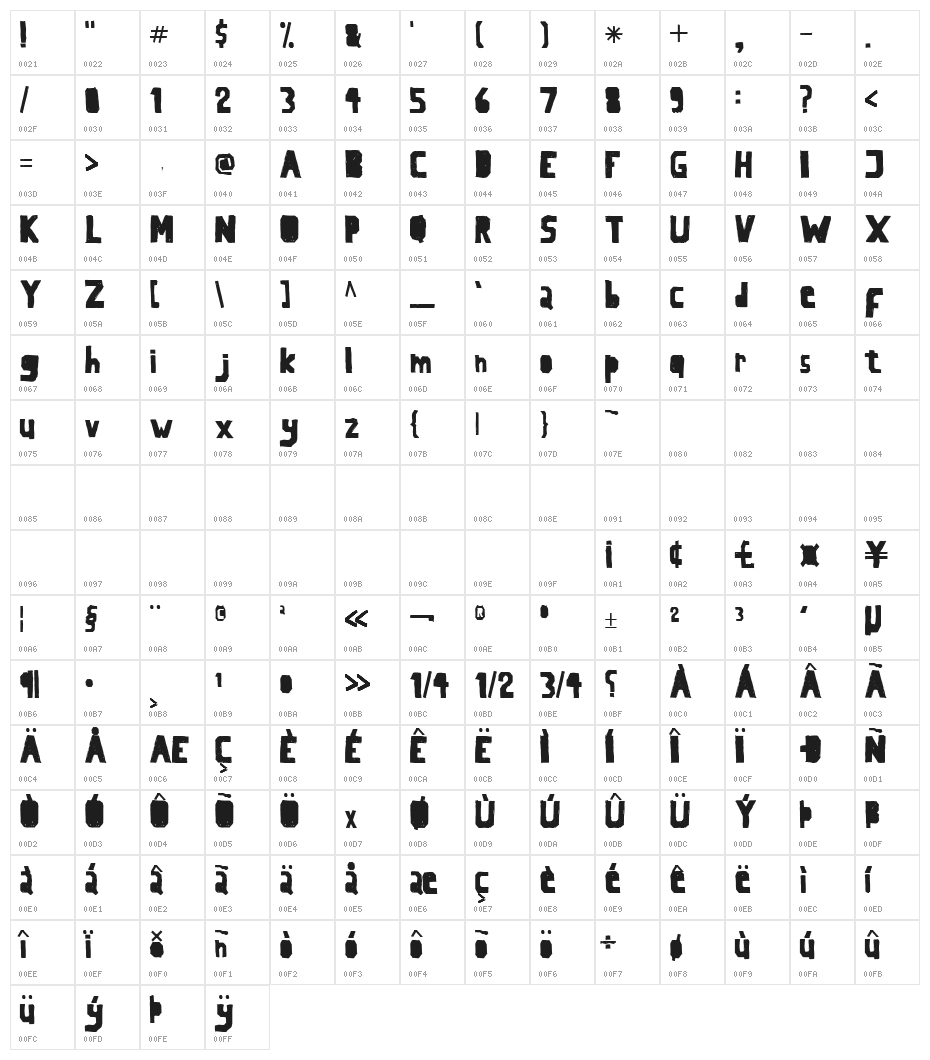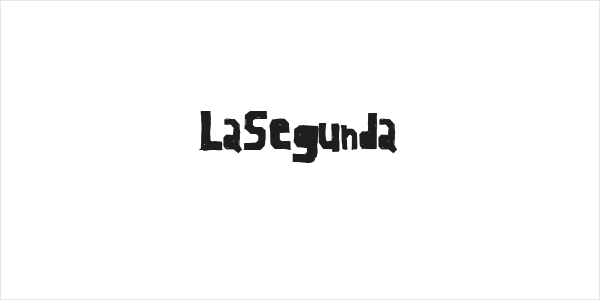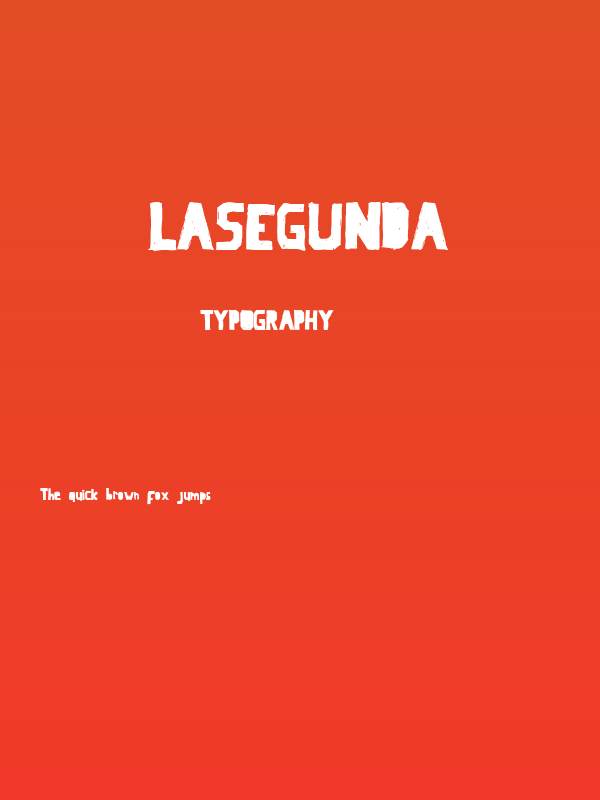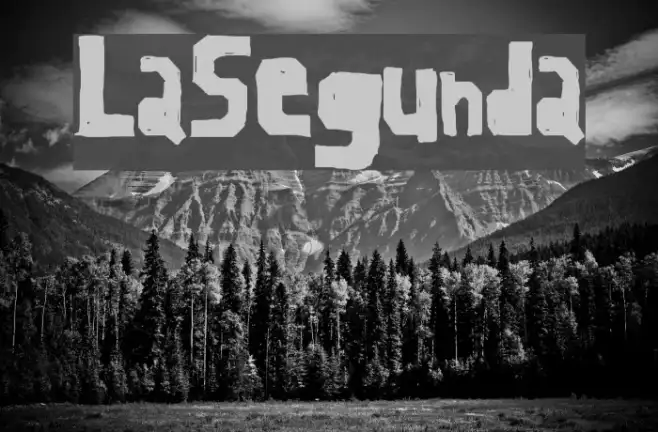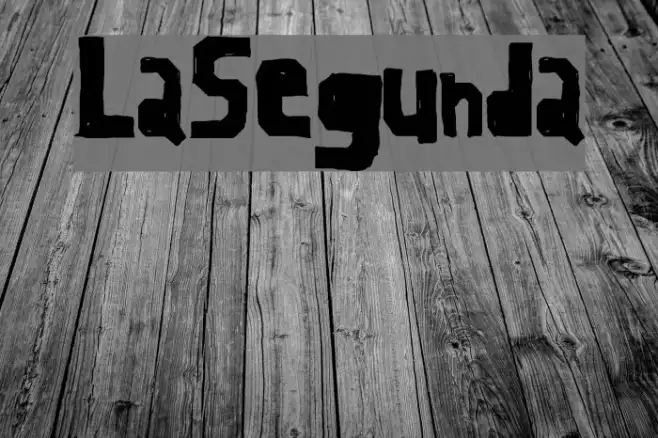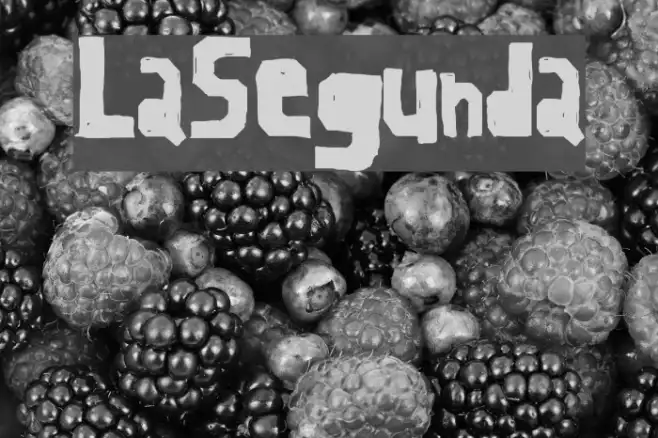
LaSegunda Font
LaSegunda Description
This font features a bold and rugged design with a hand-crafted appearance. The characters are uneven and irregular, giving it a raw and organic feel. The uppercase and lowercase letters maintain a consistent style, with thick strokes and rough edges. Numbers and special characters follow the same aesthetic, contributing to a cohesive look. The font's unique texture and bold presence make it stand out, ideal for projects that require a strong visual impact.
| Proposed Projects | Ideal for posters, album covers, branding for outdoor or adventure-themed products, and any project that requires a bold, impactful typeface. |